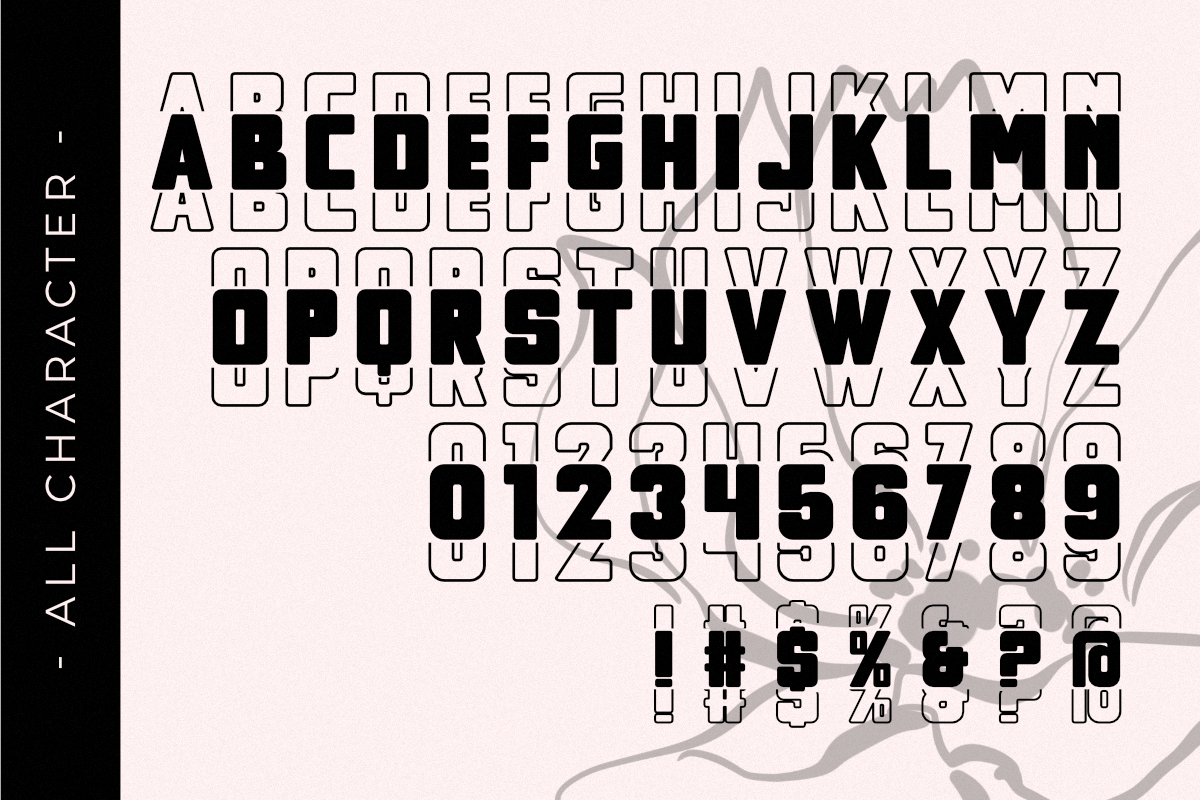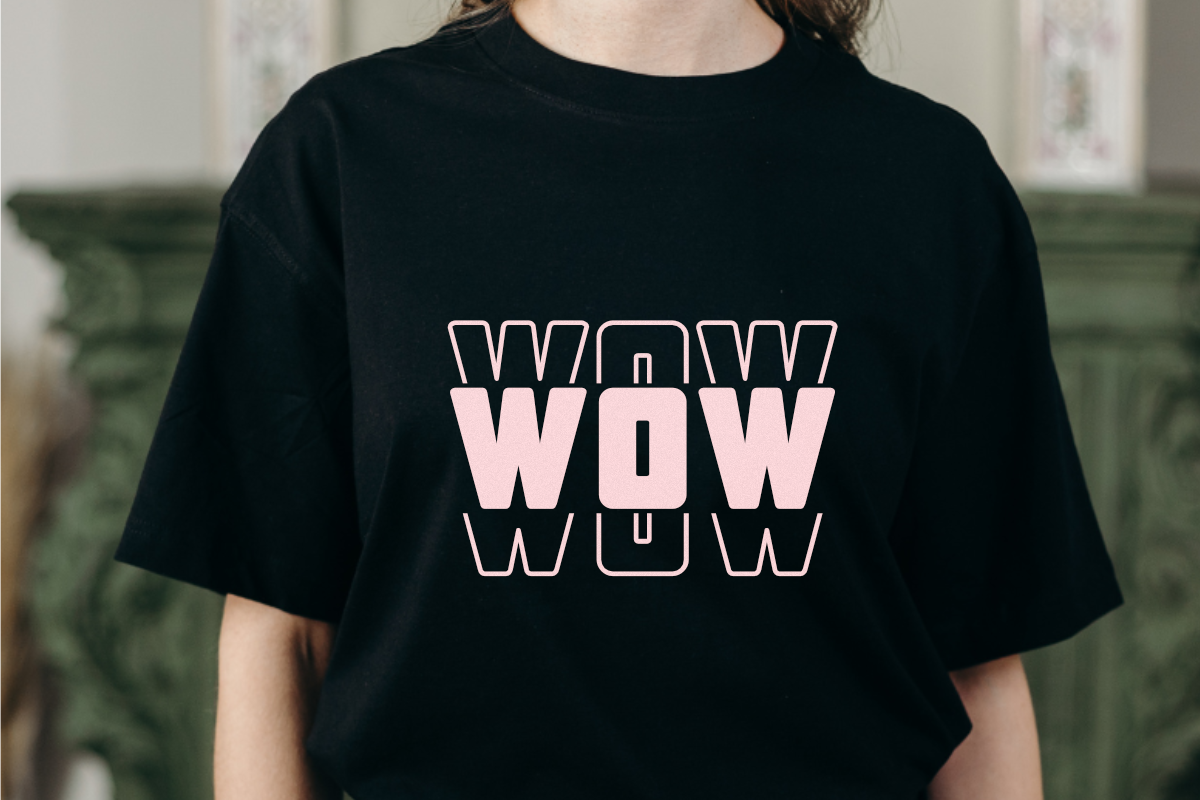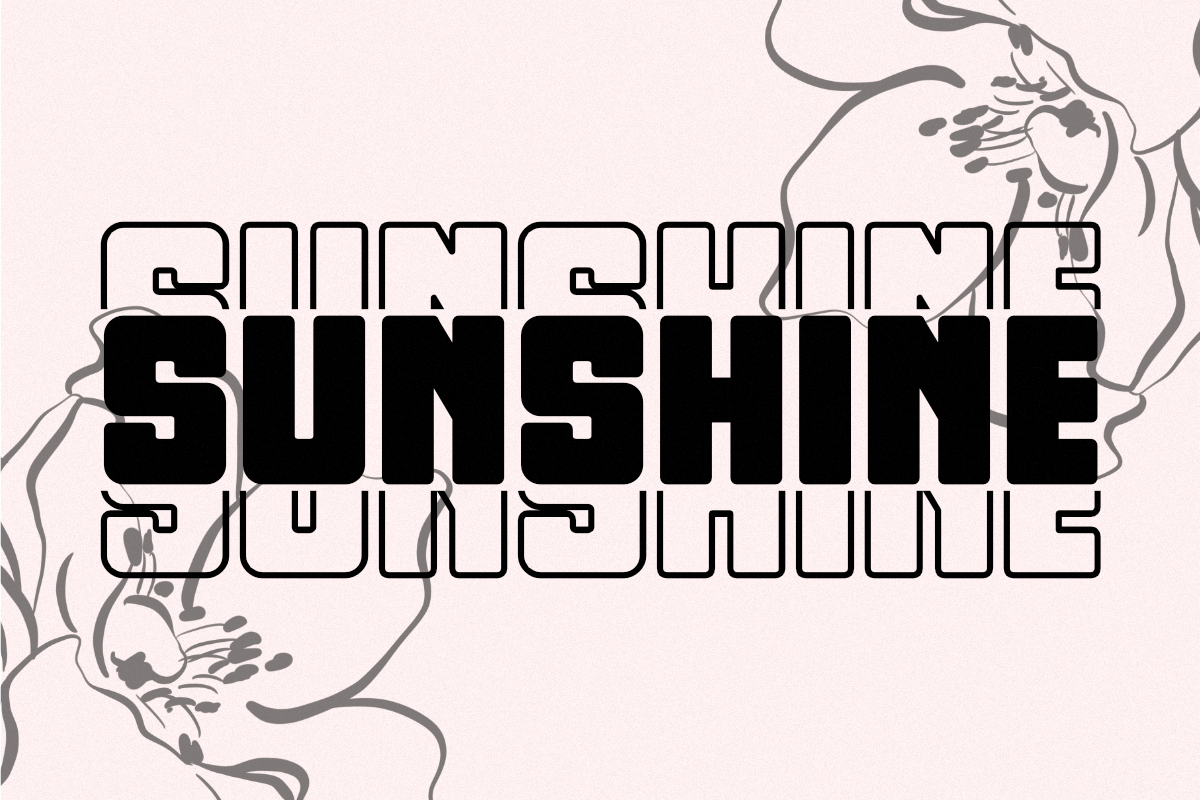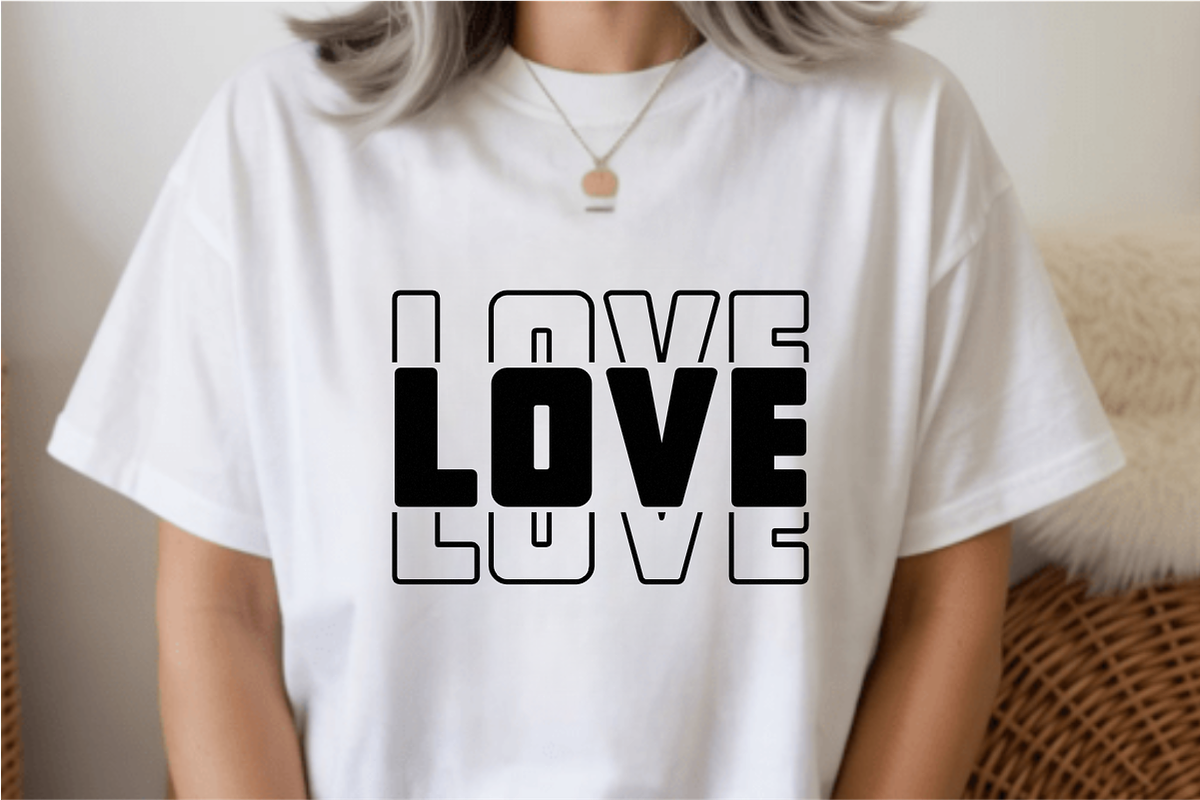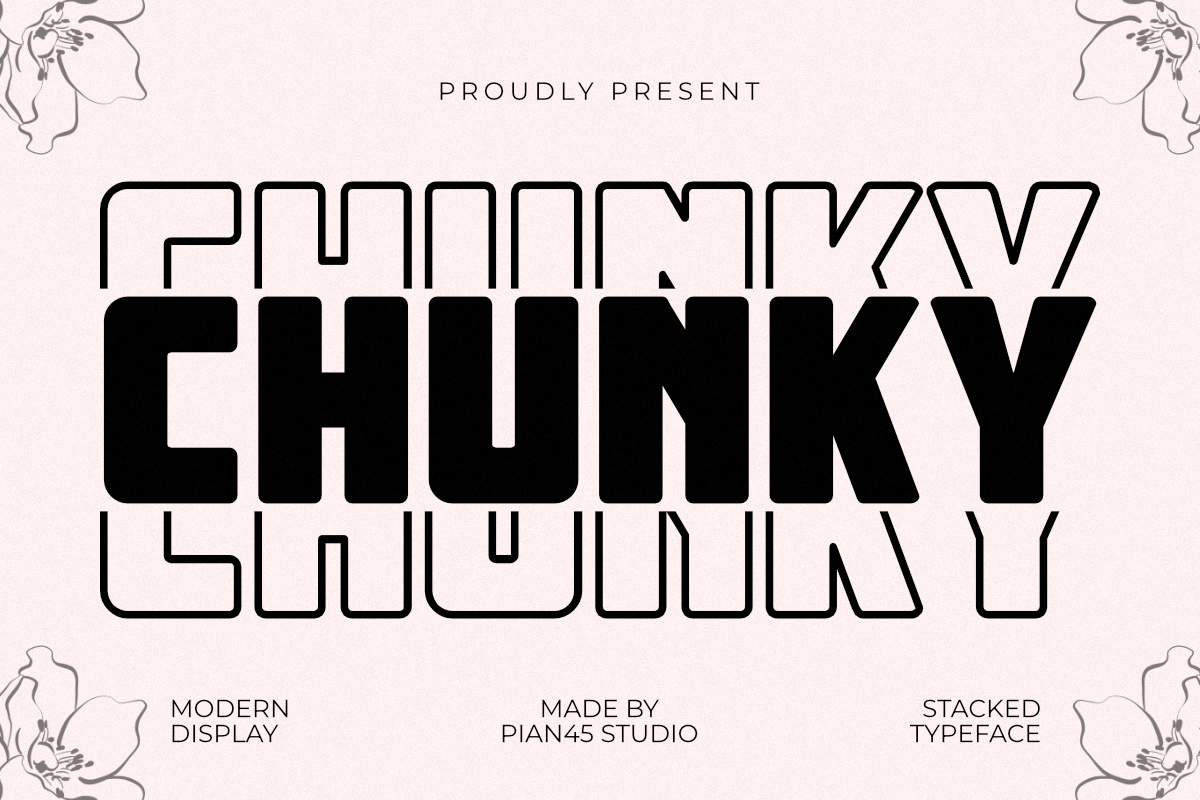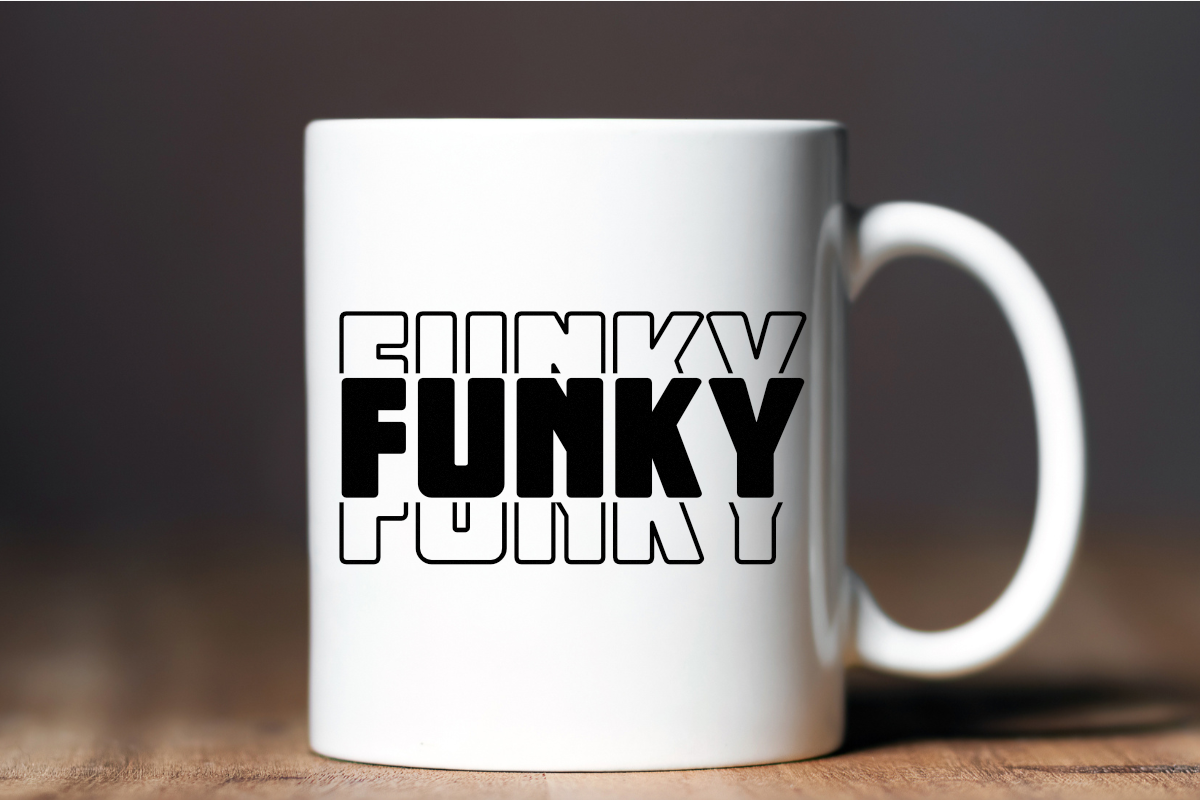
Chunky Stacked - Modern Display Font
Chunky Stacked is a bold and energetic Modern Display font designed for maximum visual impact. Featuring a unique stacked and layered style with a thick, rounded structure, this typeface is perfect for high-impact branding, cheerful apparel, social media graphics, and creative posters. Its playful yet powerful all-caps design delivers a modern, three-dimensional feel, making it an essential tool for streetwear logos, sticker designs, and any project that demands a fun, commanding, and instantly recognizable presence.